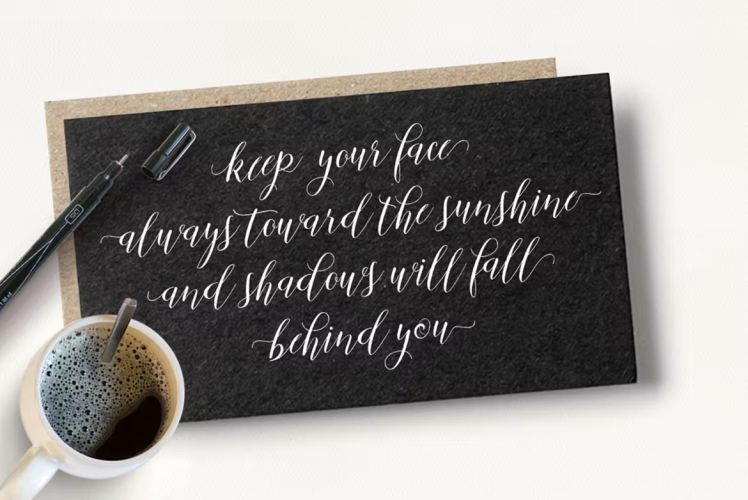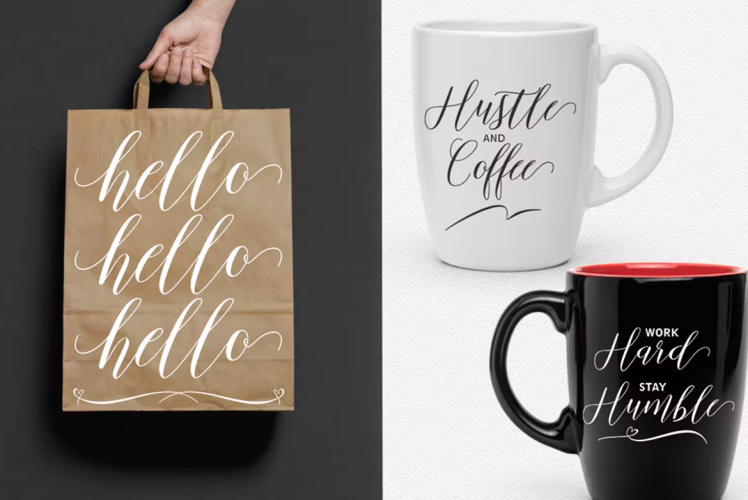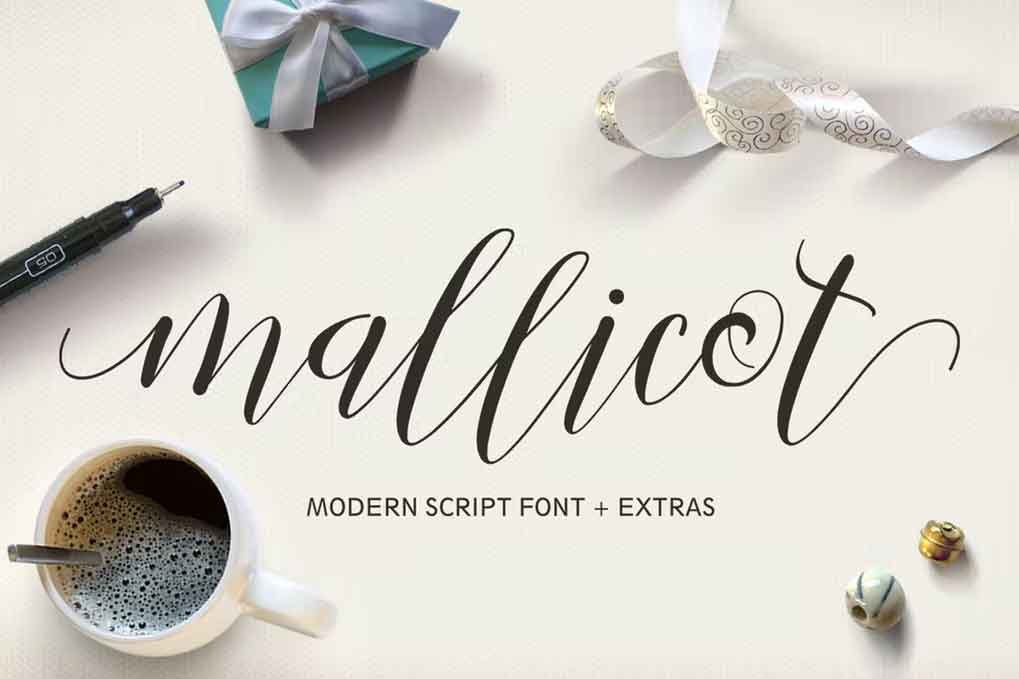
Mallicot Script Font
Mallicot Script + Extras is a calligraphic manuscript modern, dynamic and pretty with swashes. Can be used for many purposes. such as title, signature, logo, wedding inv…
Mallicot Script + Extras is a calligraphic manuscript modern, dynamic and pretty with swashes. Can be used for many purposes. such as title, signature, logo, wedding invitations, letterhead, signage, labels, newsletters, posters, badges, etc.
Where Mallicot Script Font works best
Mallicot Script Font brings a personal, handwritten warmth to invitations, menus and place cards.
Craft brands — coffee, cosmetics, bakery — use scripts like Mallicot Script Font for signature-style logos and labels.
Pair Mallicot Script Font with a plain sans for quotes, stories and Pinterest pins that feel handmade.
What is Mallicot Script Font good for?
Mallicot Script Font is a Script And Handwritten typeface tagged Branding, Calligraphy, Handwritten, Modern. It works well for headlines, logos, posters, social media graphics and branding projects that need a distinctive script and handwritten look.